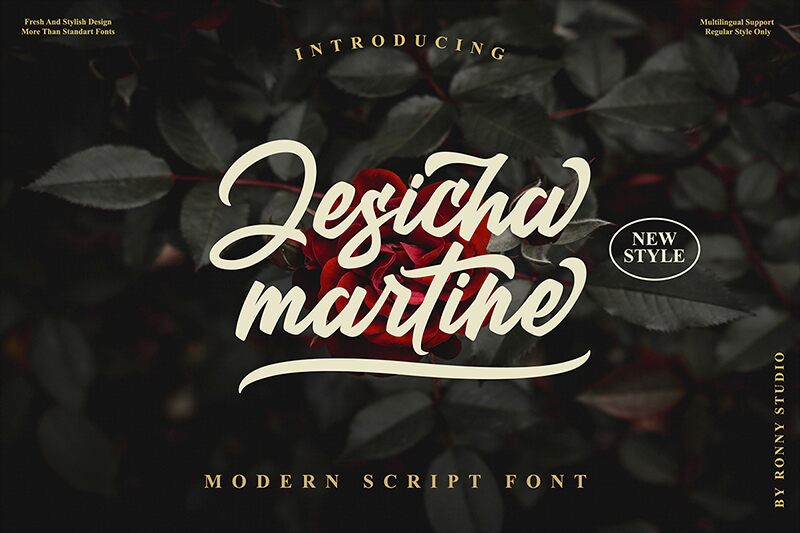
Jesicha Martine
The modern, light script of Jesicha Martine, designed by Ronny Rizki Jaya, is perfect for adding a unique touch to your logo, signature, wedding invitation or quote. Its versatile design makes it suitable for a variety of creative projects.